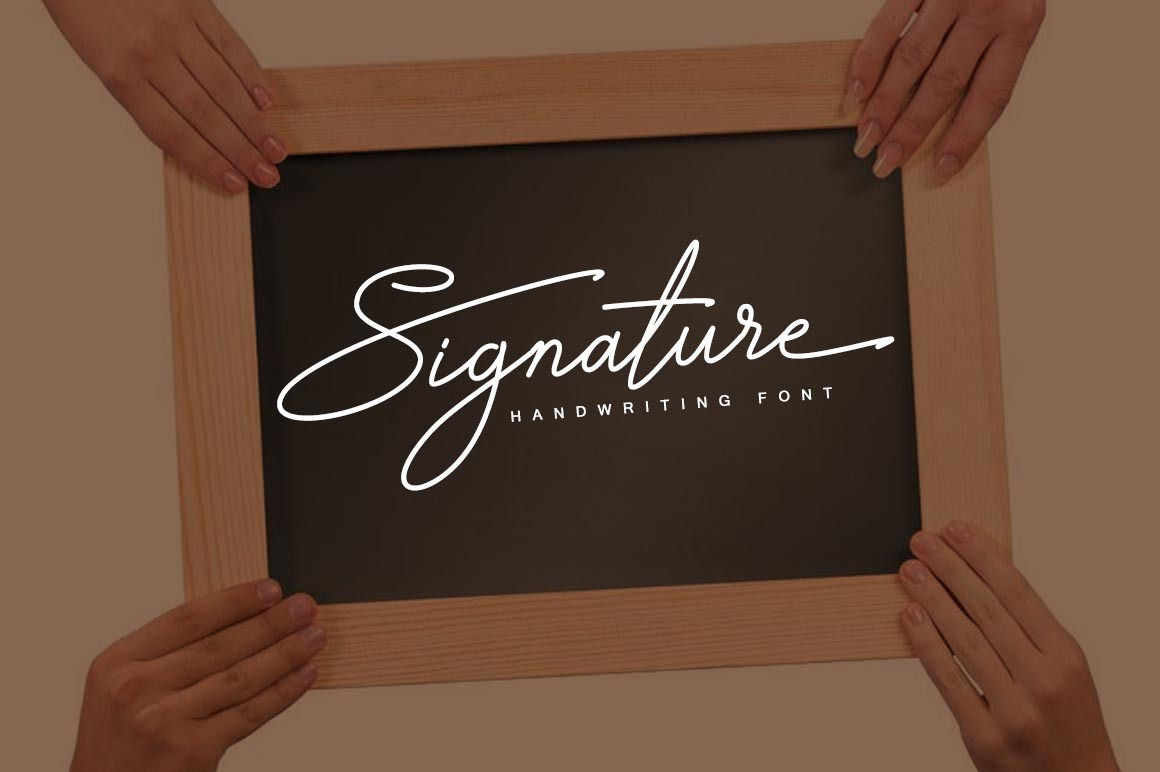
Signature TypeFace
Signature is Hand lettering font, suitable for signature and hand written manuscript, include Regular Font and extended underline.